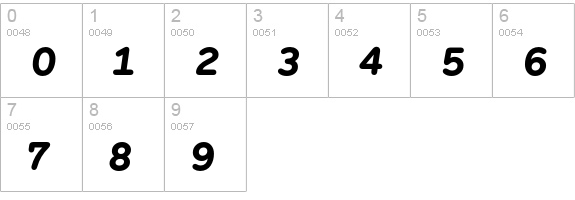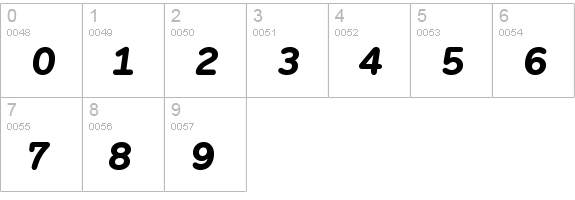
Maax Rounded BoldItalic Font Details
Maax Rounded BoldItalic font is a modern and stylish typeface that exudes confidence and boldness. With its sleek rounded edges and striking bold italic design, this font is perfect for making a statement in your designs. Whether you're creating branding materials, posters, or digital content, Maax Rounded BoldItalic will add a touch of sophistication and flair. The best part? Maax Rounded BoldItalic font is available for free download at FontsMarket.com. Simply visit the website to access this versatile and eye-catching font for all your creative projects. Don't miss out on the opportunity to elevate your designs with the distinctive charm of Maax Rounded BoldItalic font.